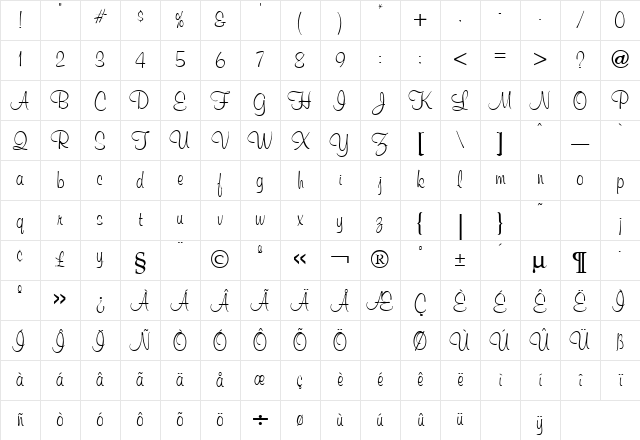
Murray Regular Free Font
Murray Regular
Complete Murray Regular glyph index. Displaying only characters natively supported by Murray Regular font.
Design Context for Murray
Murray is a composed and adaptable typeface that performs quietly and consistently across a wide range of design contexts.